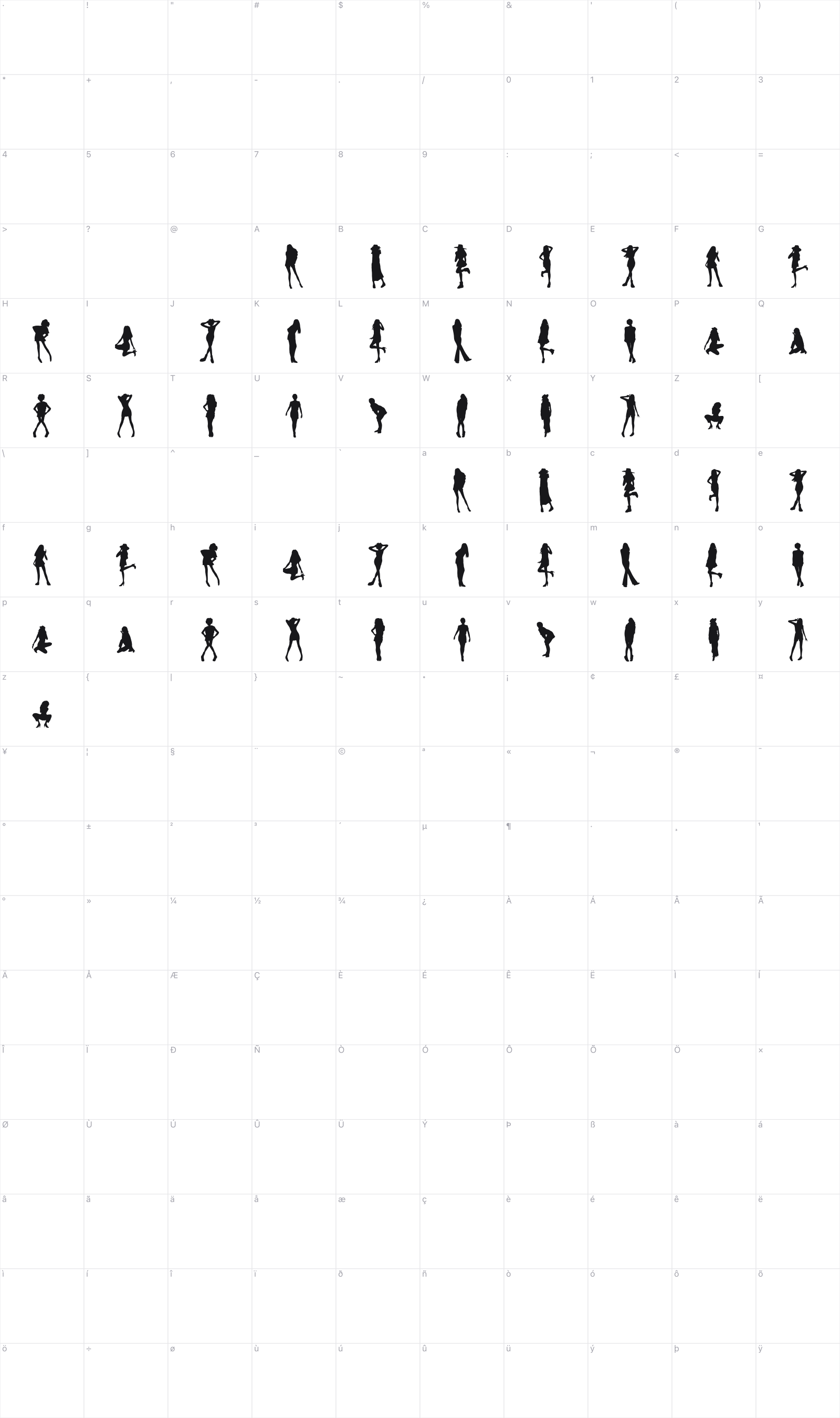
Shibuya Now!
by Sba Factory
Shibuya Now! is a decorative dingbat font from Sba Factory where each character maps to a stylish female silhouette, the kind of fashion-forward figure illustrations you'd see in boutique branding or editorial layout accents. The poses feel modern and confident, nodding to Tokyo street style culture. Useful as spot illustrations, pattern elements, or decorative icons in fashion, beauty, and lifestyle contexts.